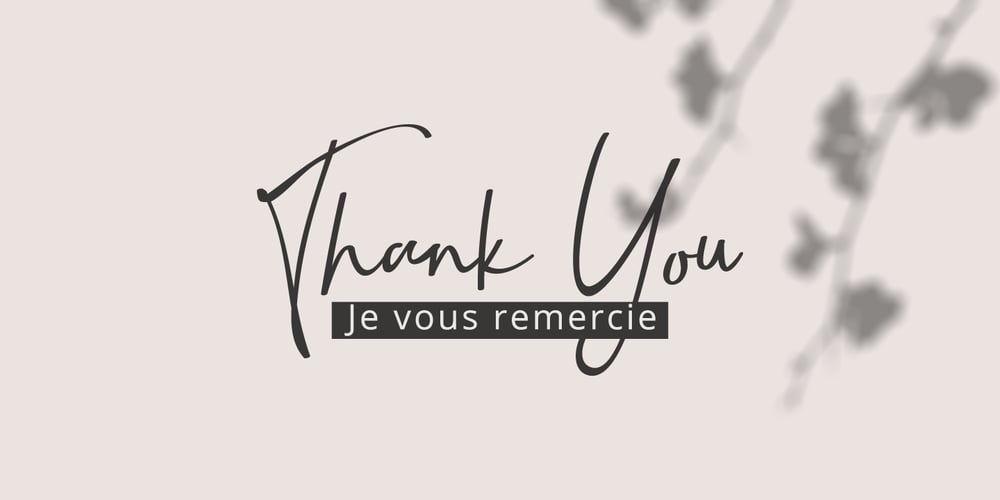
Natthalie Signature
Natthalie Signature font
Natthalie Signature Font Family was designed by Ferdiansyah and published by Pointlab. Natthalie Signature contains 1 styles and family package options. Natthalie Signature is a new fresh & modern script with a handmade calligraphy style, decorative characters and a dancing baseline! So beautiful on invitation like greeting cards, branding materials, business cards, quotes, posters, and more!! Natthalie Signature come with 300 glyphs+. The alternative characters were divided into several Open Type features such as Stylistic Alternates, and Ligature. The Open Type features can be accessed by using Open Type savvy programs such as Adobe Illustrator, Adobe InDesign, Adobe Photoshop Corel Draw X version, And Microsoft Word. And this Font has given PUA unicode (specially coded fonts). so that all the alternate characters can easily be accessed in full by a craftsman or designer. Natthalie Signature Features : Uppercase & Lowercase International Languange & Symbols Support Punctuation & Number PUA Unicode Range Standard Ligatures Discretionary Ligatures Stylistic Alternates Stylistic Set 01 Character Natthalie Signature.OTF For use in office word, you all can read the following article. http://www.magpiepaperworks.com/blog/using-opentype-fonts-in-microsoft-word/ To Access Alternate Characters Click The Link Below: If you have any question, don’t hesitate to contact me by email pointlab23@gmail.com. Thanks and happy designing 🙂